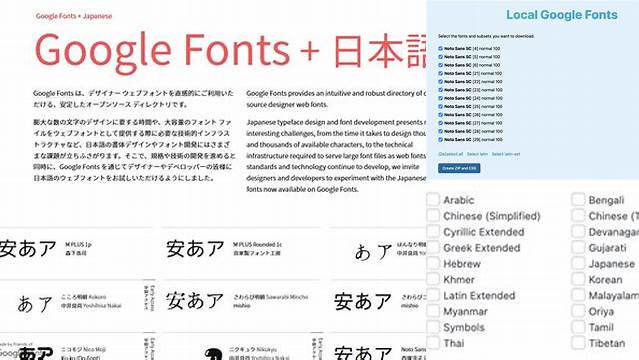
Japanese Subsets On Google Fonts: A Complete Guide
Choosing the right fonts for your Japanese text can be a bit of a journey, especially when dealing with the vastness of character sets like kanji, hiragana, and katakana. Google Fonts offers a fantastic selection, but understanding how Japanese subsets work is key to optimizing your website's performance and user experience. So, let's dive in and explore everything you need to know about using Japanese subsets on Google Fonts!
Understanding Japanese Character Sets
Before we get into subsets, let's quickly recap the different character sets in Japanese. You've got kanji, which are Chinese characters adopted into Japanese; hiragana, a phonetic script used for native Japanese words and grammatical elements; and katakana, another phonetic script primarily used for foreign words and onomatopoeia. Each of these plays a crucial role, and a comprehensive Japanese font needs to support them all, along with numerals, punctuation, and other symbols. This is where things can get heavy – literally! Full Japanese font files can be quite large, which can slow down your website. That’s where subsets come to the rescue, guys!
What are Font Subsets and Why Do They Matter?
Font subsets are like mini-versions of a font file, containing only the characters you actually need for your content. Imagine carrying around a whole library when you only need a few books – that's what using a full font file is like when you only need a fraction of its characters. By using subsets, you significantly reduce the file size, leading to faster loading times and a smoother experience for your website visitors. Think of it this way: faster loading times equals happier users, and happier users are more likely to stick around and engage with your content. Plus, it’s better for your SEO – Google loves a speedy website! Using Google Fonts with Japanese subsets is a smart move for anyone serious about web performance and user experience.
How Subsetting Works in Japanese Fonts
Japanese fonts are particularly large due to the sheer number of characters, especially kanji. A typical Japanese font can contain thousands of glyphs, making the full font file size quite substantial. Subsetting allows you to cherry-pick only the characters necessary for your specific text. For instance, if your website focuses on a particular topic and uses a limited vocabulary, you can create a subset containing just those characters. This dramatically reduces the font file size, making your pages load much faster. The process often involves using tools or services that analyze your text and extract the required characters to create a smaller font file. This efficient approach ensures that your website remains lean and responsive while still delivering beautifully rendered Japanese text.
Google Fonts and Japanese Subsets: The Perfect Match
Google Fonts is a treasure trove of amazing fonts, and many of them support Japanese. The great thing is that Google Fonts often handles subsetting automatically! When you embed a font from Google Fonts, it smartly delivers only the necessary characters based on the text on your page. This means you get the benefit of a beautiful Japanese font without the performance hit of a massive file size. It's like having a personal font optimization expert working behind the scenes. You can often tweak the settings to further refine the subsets, but generally, Google Fonts does a stellar job of delivering optimized font files. This makes it incredibly easy to use high-quality Japanese typography without sacrificing speed. Just another reason why Google Fonts is a go-to resource for web developers and designers!
Choosing the Right Japanese Font from Google Fonts
Considering Font Styles for Japanese Text
Selecting the right font style is essential for readability and visual appeal in Japanese text. Google Fonts offers a diverse range of Japanese fonts, from traditional Mincho (serif) styles to modern Gothic (sans-serif) styles. Mincho fonts, reminiscent of traditional printing, are often preferred for formal and lengthy content, providing a sense of elegance and clarity. Gothic fonts, with their clean and simple lines, are well-suited for digital displays and contemporary designs. When choosing a font style, consider the overall tone and purpose of your website. For instance, a website focused on traditional arts might benefit from a Mincho font, while a tech blog might opt for a Gothic font. It’s crucial to balance aesthetic preferences with readability, ensuring that your chosen font enhances the user experience. Remember, the best font is one that is both visually pleasing and easy to read.
Understanding Font Weights and Their Impact
Font weights play a crucial role in the legibility and visual hierarchy of your Japanese text. Google Fonts provides various font weights, typically ranging from light to bold, allowing you to create emphasis and structure within your content. Using different font weights can help differentiate headings from body text, highlight important information, and guide the reader's eye through the page. However, it's essential to use font weights judiciously. Too many different weights can create visual clutter and detract from readability. Consider the overall design of your website and choose font weights that complement the layout and content. For Japanese text, a medium or regular weight is often preferred for body text, while bolder weights can be used for headings and subheadings. Experiment with different weights to find the optimal balance that enhances both readability and aesthetic appeal.
Checking for Japanese Language Support in Google Fonts
Not all fonts on Google Fonts support Japanese characters, so it's vital to verify language compatibility before making your selection. When browsing Google Fonts, look for fonts that specifically list